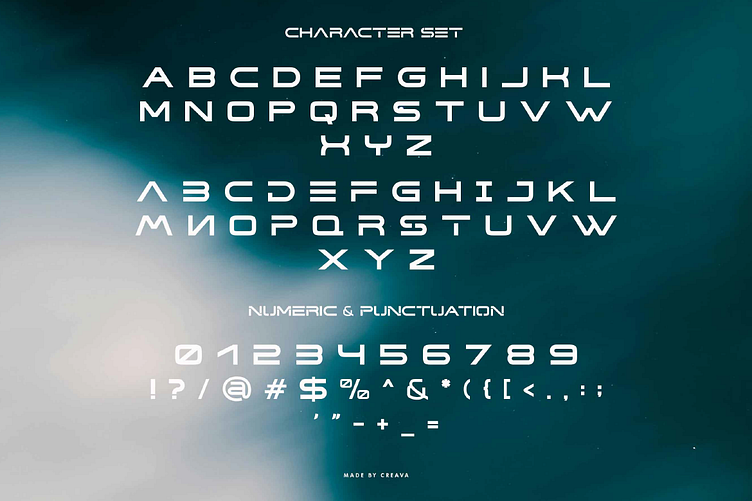
Encourage Modern Futuristic Font
Encourage Futuristic Font
is a refined trio of fonts crafted to bring effortless elegance to any design. This thoughtfully curated collection unites a bold all-caps serif, a clean all caps sans, and a graceful script striking the perfect balance between structured clarity and organic charm.
Use the serif to make a confident statement in headlines and logos. Let the sans keep things sleek and readable in body text. And add a personal touch with the script, featuring a rich array of glyphs and ligatures that lend handwritten warmth to signatures, quotes, packaging, and beyond.